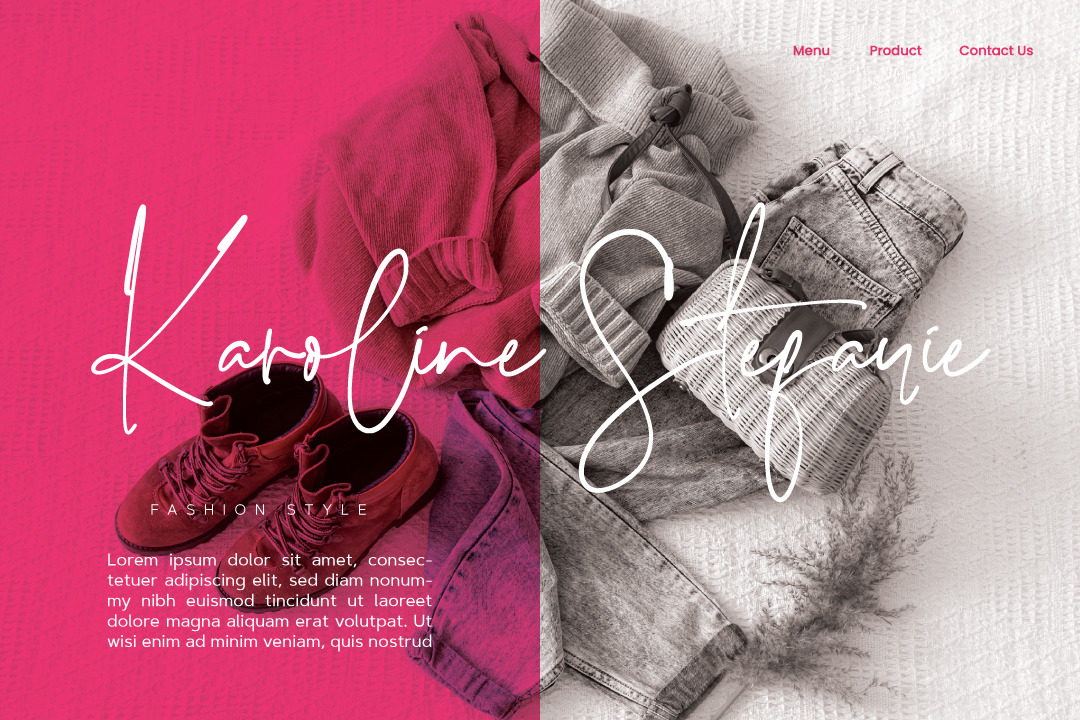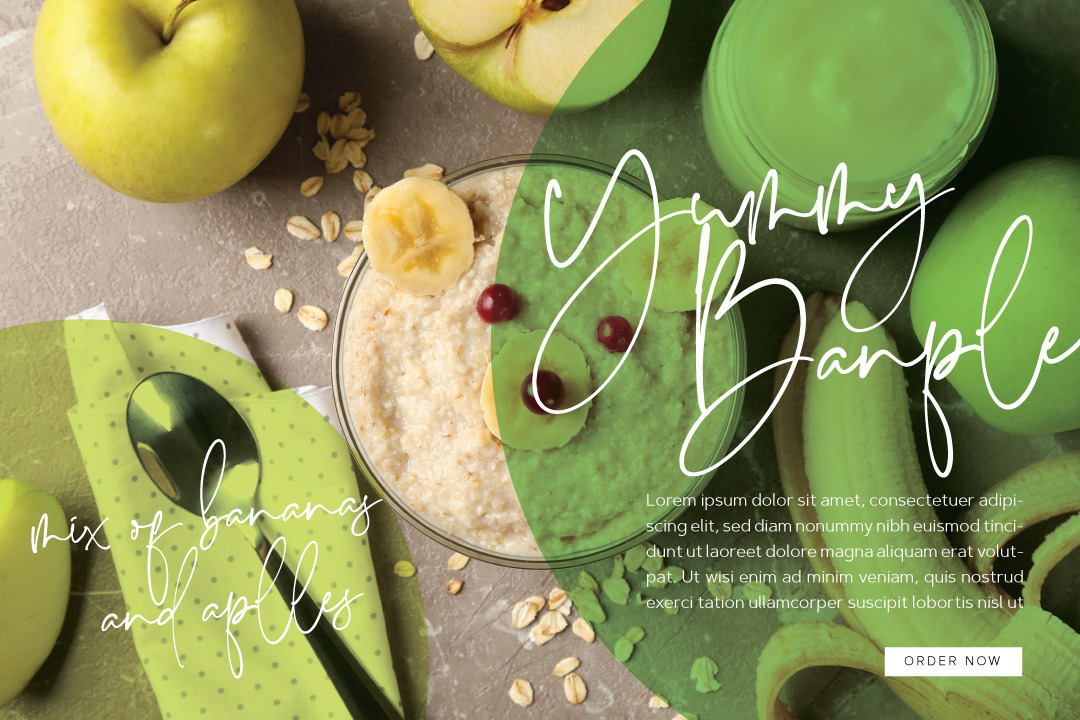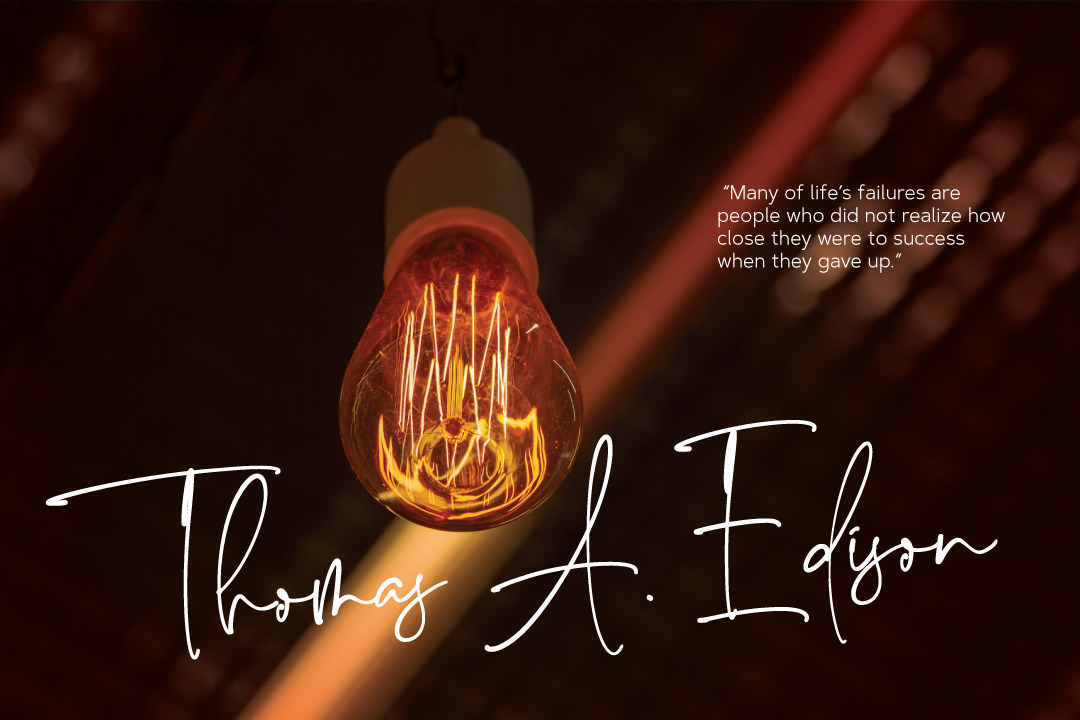
Band of Brother Font
Introducing the new font Band of Brother, simple, natural, and natural handwritten font. This font suitable for use in a variety of design fields, such as event advertisements, product promotions, book titles, activity titles, logos, adventure, and others. This font can when paired with serif font types will make your design project more beautiful and perfect.
- Number & punctuations
- Multilingual
- Ligatures and alternates character